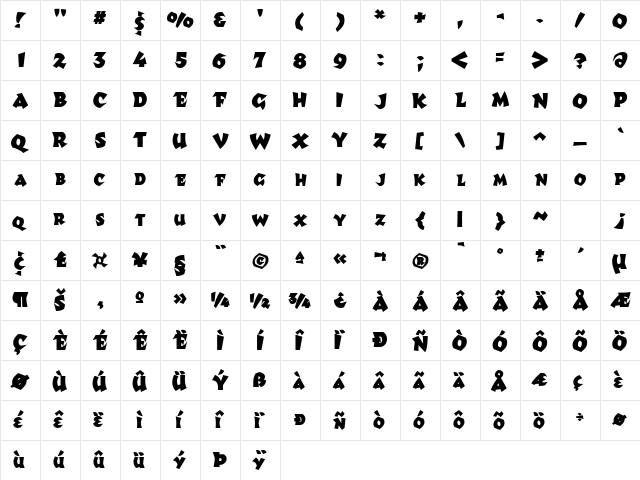
DustupSCapsSSK Bold
DustupSCapsSSK Family
Design Context for DustupSCapsSSK
DustupSCapsSSK is a composed and adaptable typeface that performs quietly and consistently across a wide range of design contexts. Its bold stroke weight gives it real presence on the page.